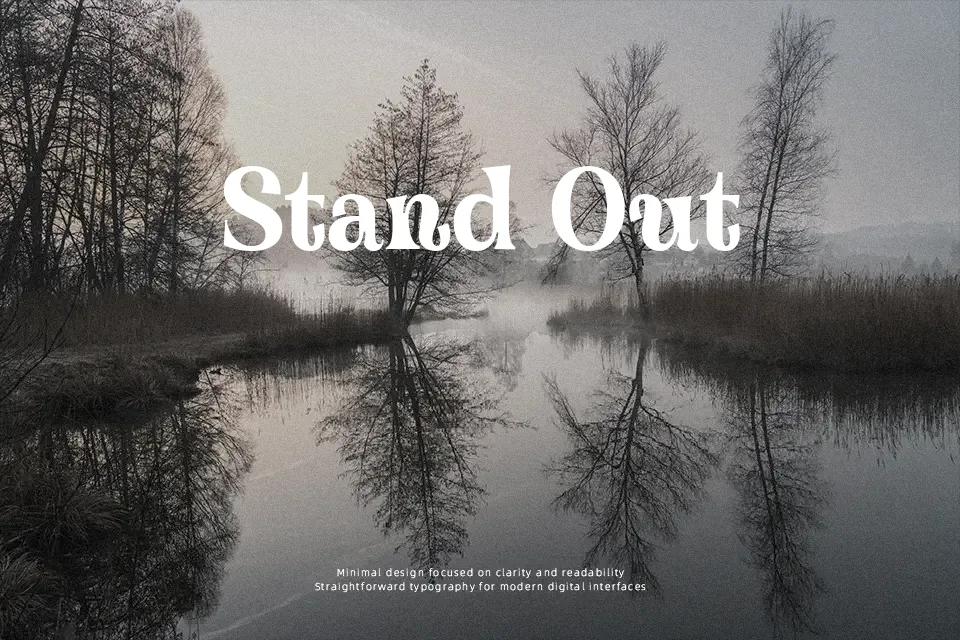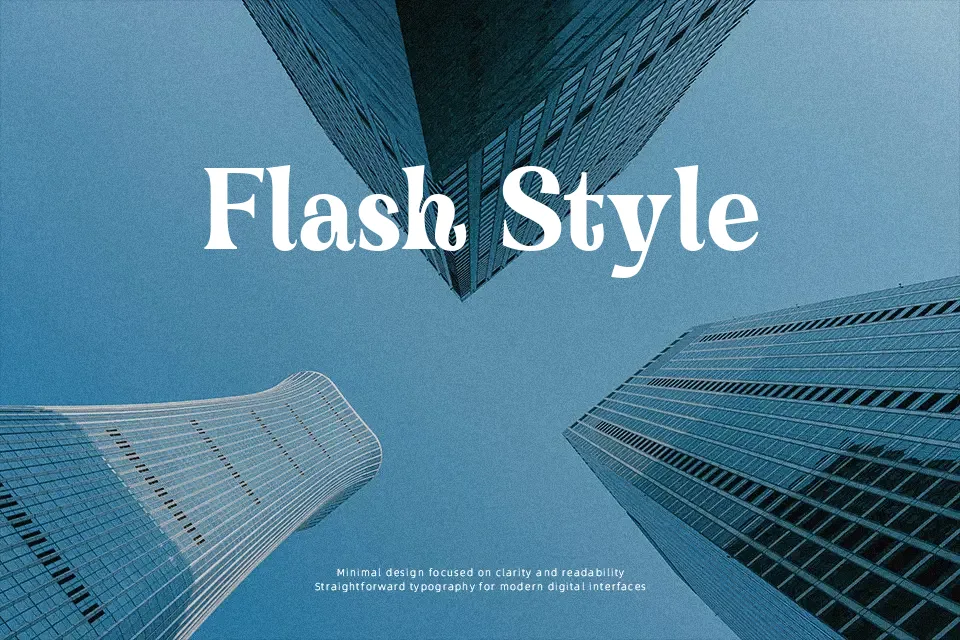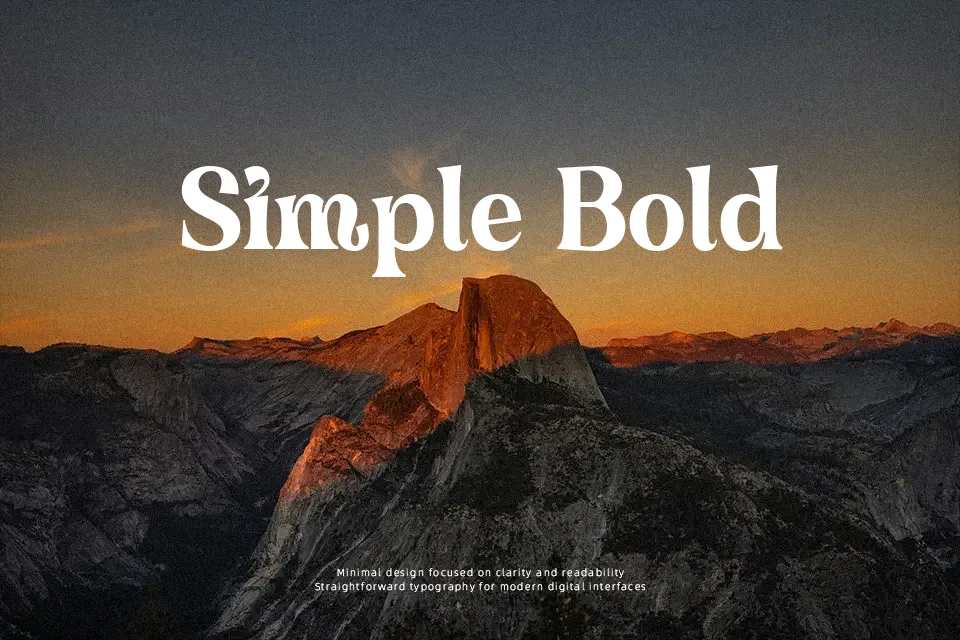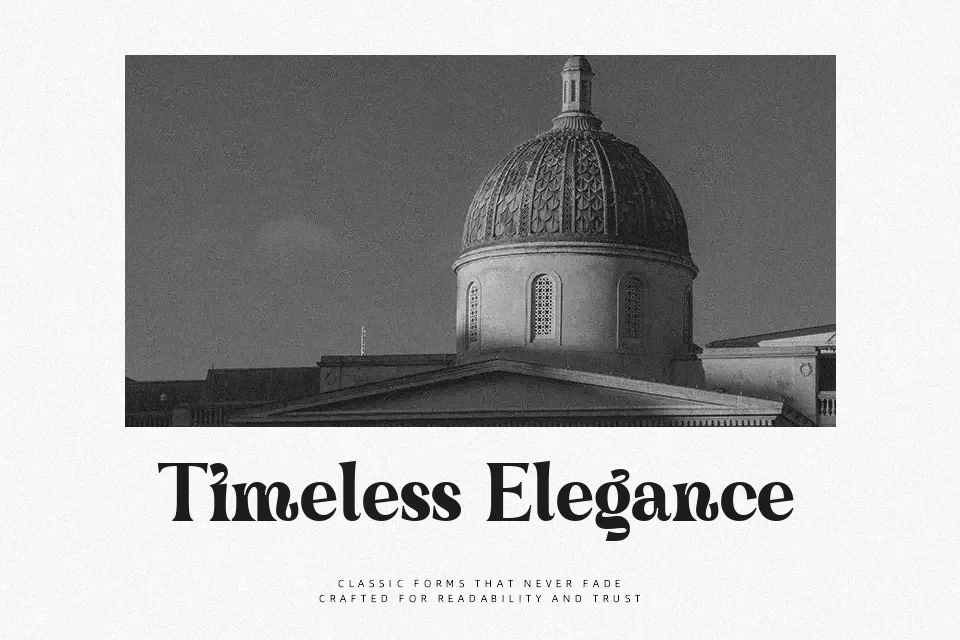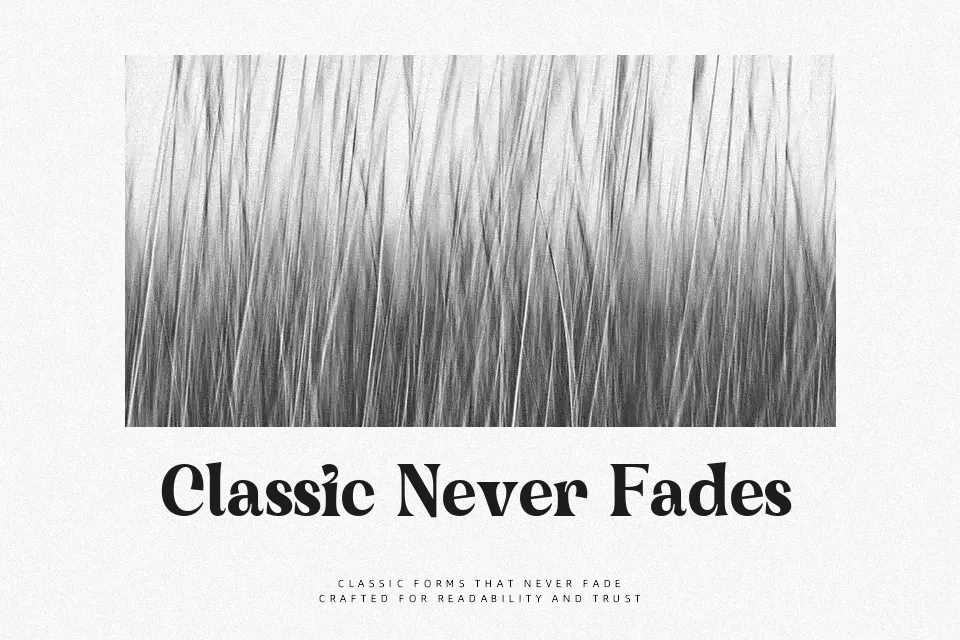
Trinstam Font
Designed by Zarma Type Foundry
Trinstam Font delivers maximum visual impact when showcased at prominent display scales where its distinctive flared serifs can command attention. The typeface combines moderate stroke contrast, sculptural curved stems, and generous uppercase proportions that create a steady, rhythmic cadence across short lines of text. Carefully balanced character spacing prevents overlapping while preserving cohesive word shapes in hero headers, merchandise graphics, and specialized print layouts. However, the expressive terminal details and tight internal counters make the design less suitable for continuous body reading, where extended passages compromise overall legibility. As a dedicated titling option, the design balances vintage charm with sharp contemporary precision.
Best For: vintage product packaging, editorial magazine headlines, boutique merchandise branding, retro festival posters
Not Ideal For: long paragraph text, dense technical manuals, small mobile interface captions, tabular spreadsheet data